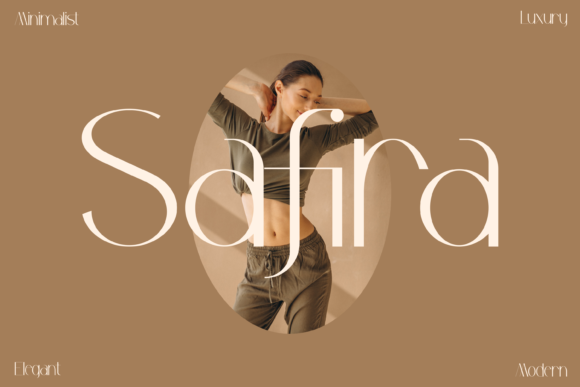
Looking for the best font for a quote that will add a touch of luxury to your design projects? Look no further than Safira Font from Storytype Studio!
Safira is a delicate sans serif font with thin lettering that exudes elegance and sophistication. It's the perfect choice for anyone looking to elevate their designs and make a statement.
With its PUA encoding, Safira gives you easy access to a wide range of amazing glyphs and ligatures that will take your designs to the next level. Whether you're creating social media graphics, website designs, or print materials, Safira is the perfect choice for any project that demands a touch of class.
What sets Safira apart from other fonts is its unique combination of delicacy and strength. Its thin lettering gives it a delicate, feminine touch, while its bold lines convey a sense of power and confidence. This makes Safira an incredibly versatile font that can be used for a wide range of design projects.